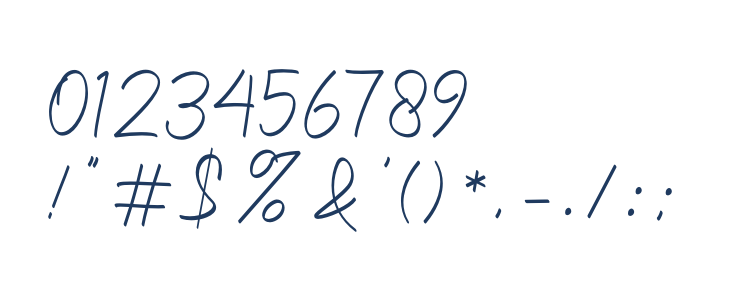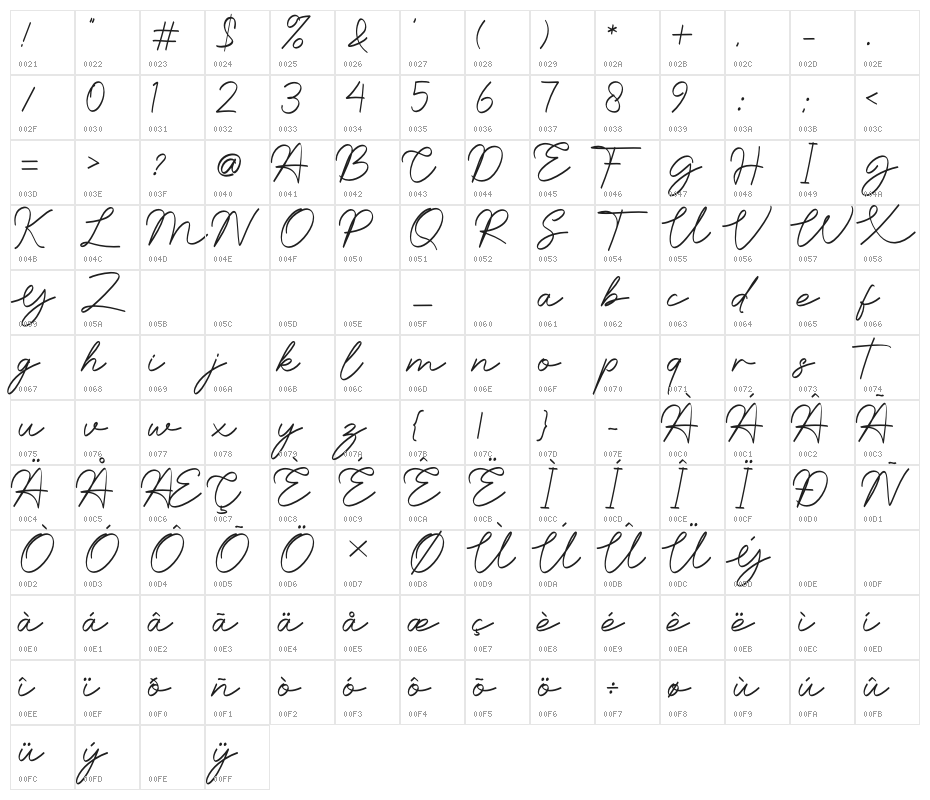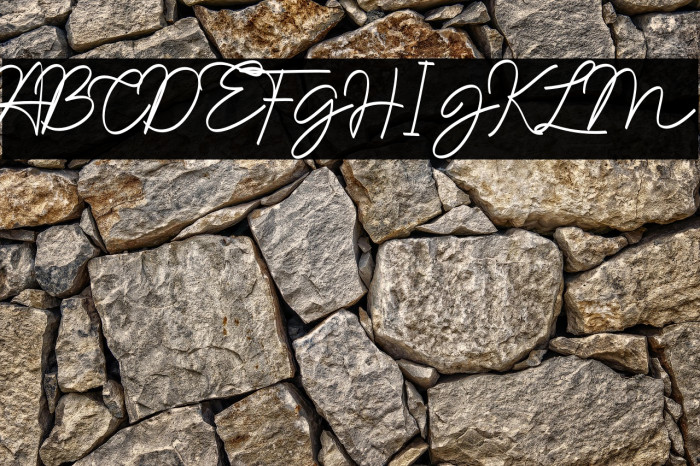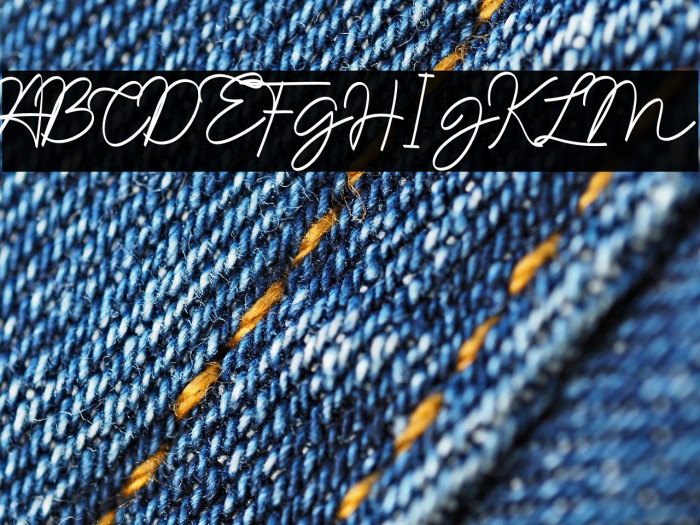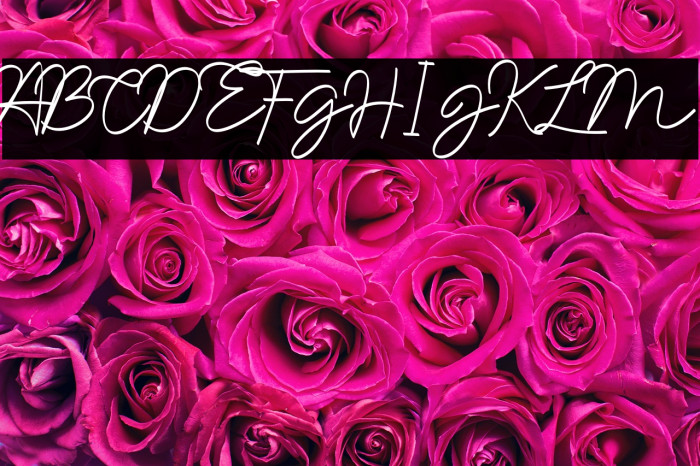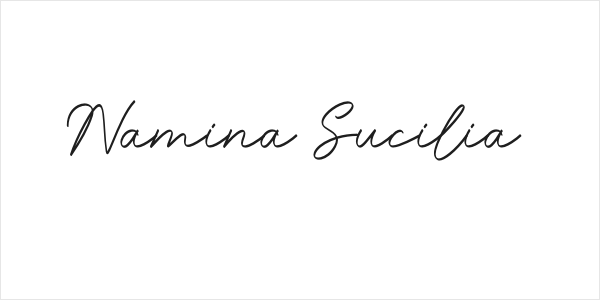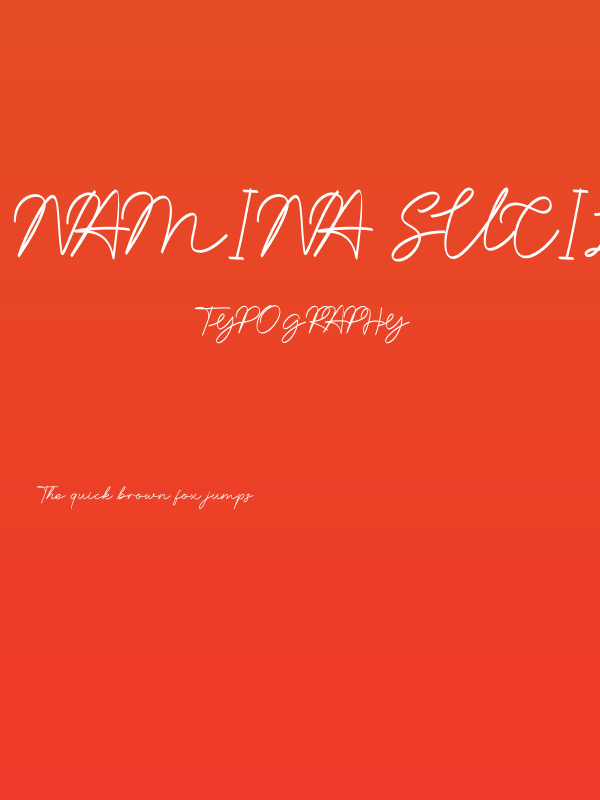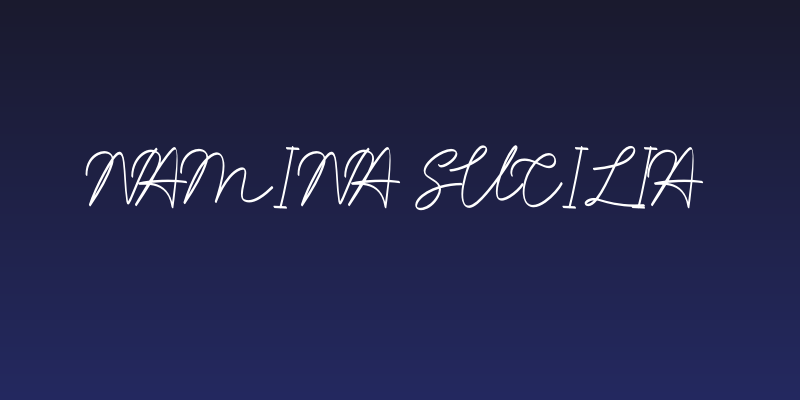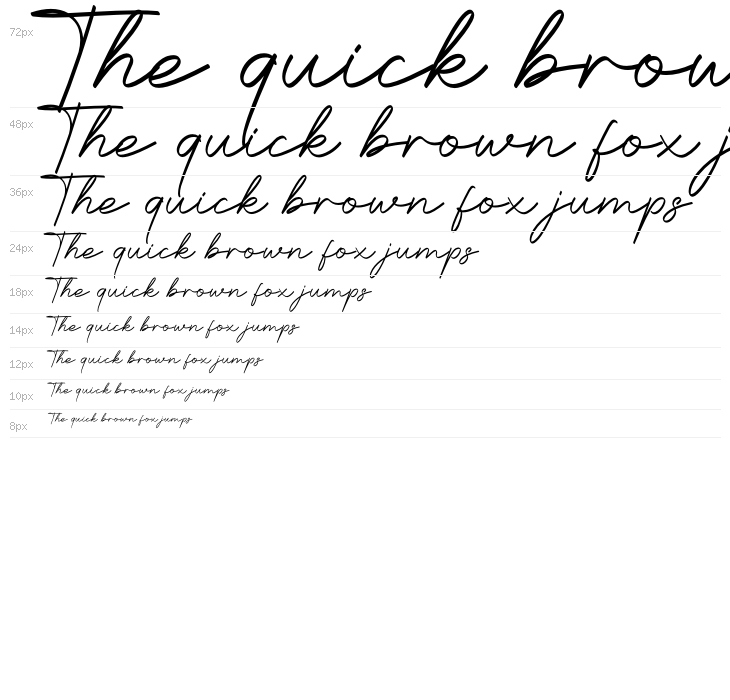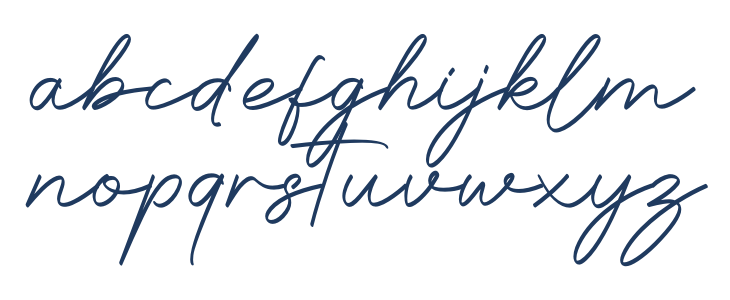
Namina Sucilia Font
Namina Sucilia Description
This font exudes a graceful and fluid handwritten style, characterized by its elegant cursive script. The letters are connected in a smooth, flowing manner, giving it a natural and personal touch. The uppercase letters maintain a consistent height, while the lowercase letters exhibit a slight slant, enhancing the overall dynamic appearance. The numerals are clear and legible, complementing the alphabet with their rounded forms. Special characters are thoughtfully designed, maintaining the cohesive aesthetic of the script. This font is perfect for projects that require a personal, elegant touch, such as invitations, greeting cards, or branding materials.
| Overall Style | Elegant, Personal, Handwritten |
| Use Case | Invitations, Personal branding, Greeting cards |
| Proposed Projects | Ideal for wedding invitations, personal branding, greeting cards, and elegant stationery. |